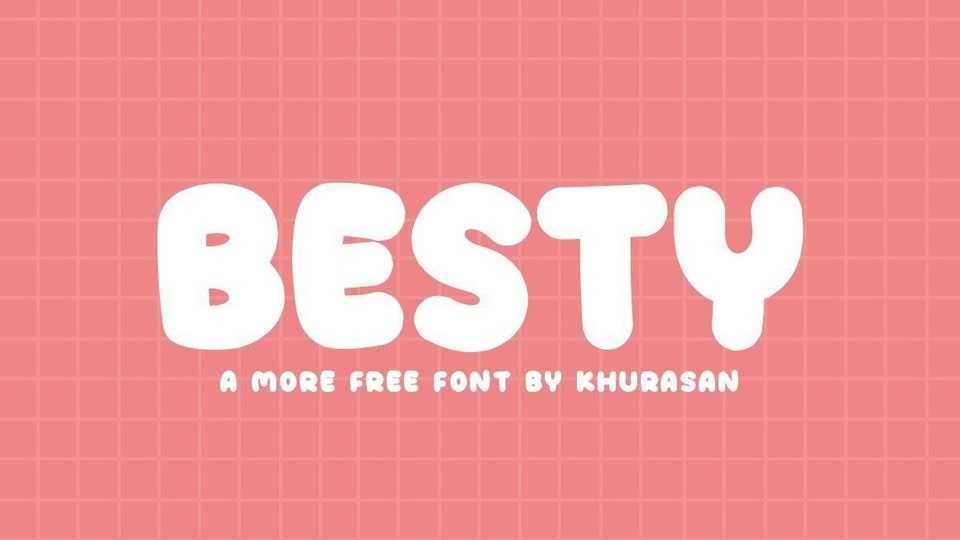
Download Besty font a funny and quirky handwritten typeface. Besty is perfect for posters, logos, magazines, book covers, banners and other lovely designs.